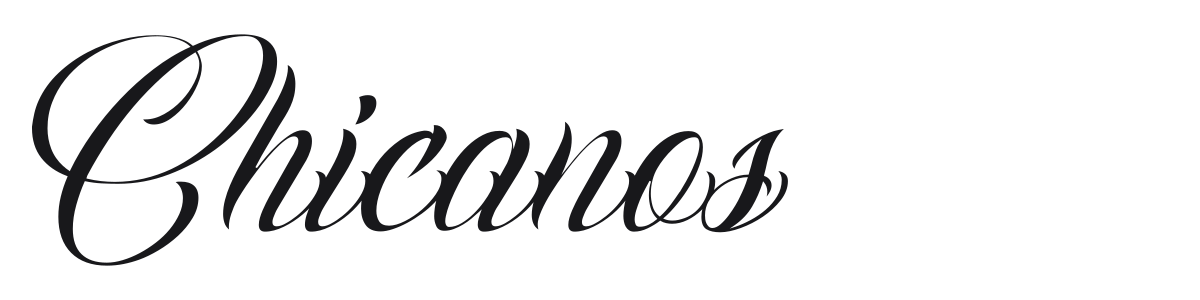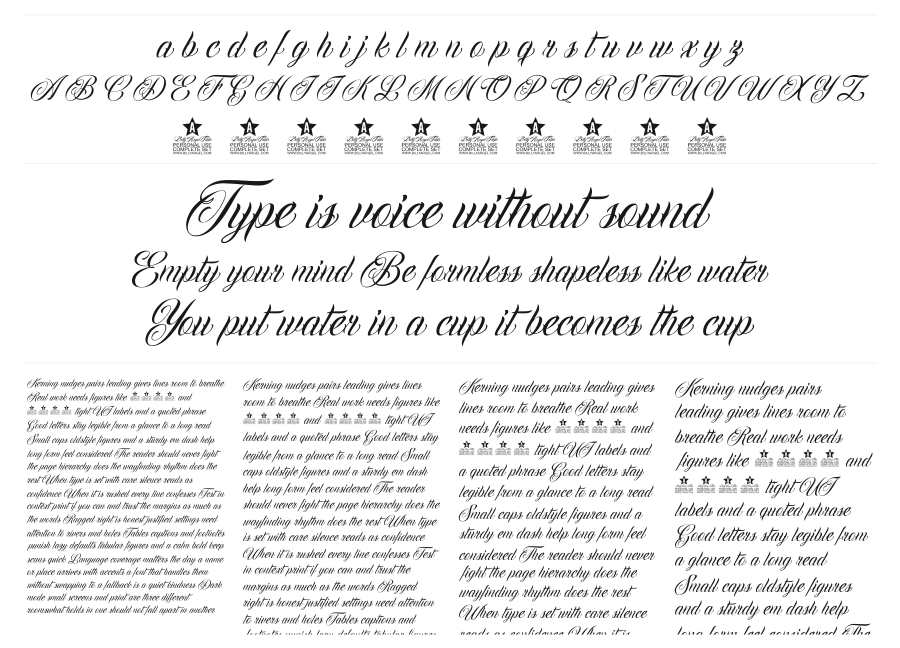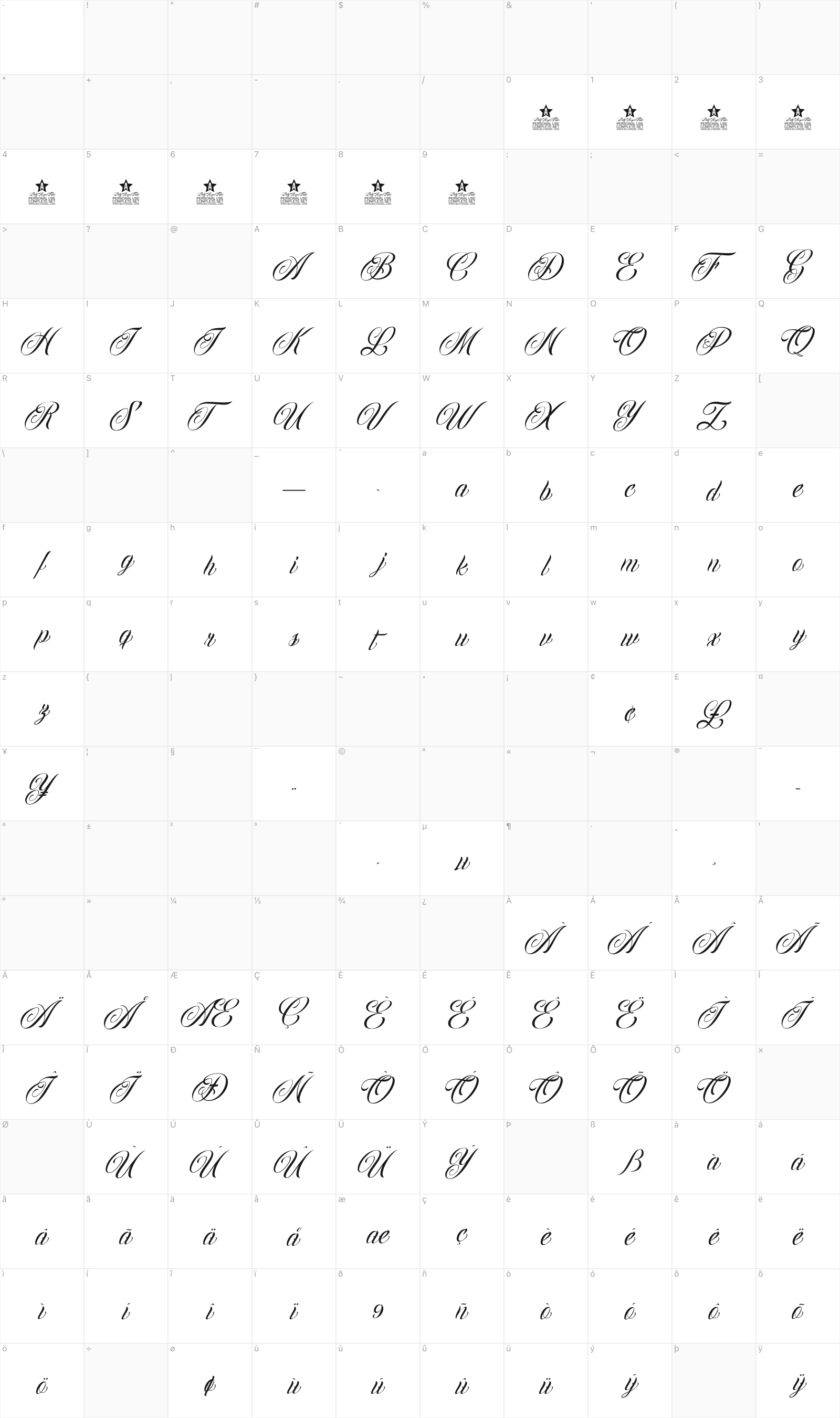
Chicanos
Chicanos is an ornate formal script rooted in the tradition of Chicano tattoo lettering, fused with the flowing elegance of Spencerian calligraphy. Heavy, ink-rich strokes contrast sharply against delicate hairline connectors, and the long looping ascenders and descenders give text a theatrical, almost hand-inked quality. It carries genuine character for branding, album artwork, packaging, and anywhere that needs beauty with some edge.